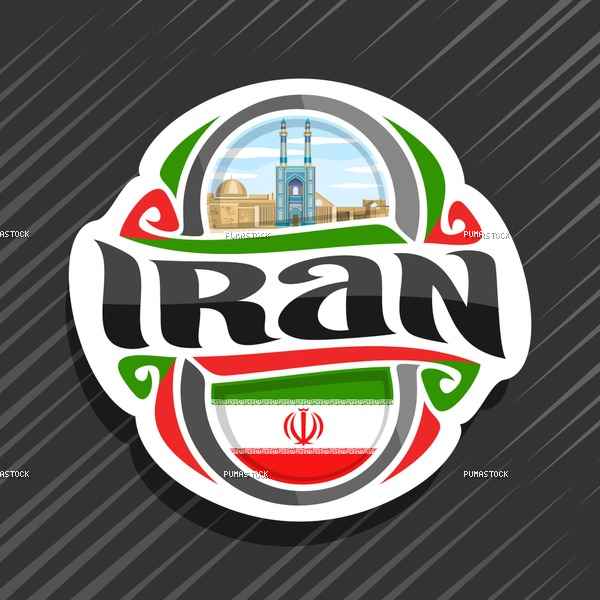
Vector logo for Iran country, fridge magnet with iranian state flag, original brush typeface for word iran and national iranian symbol - famous blue Jame Mosque of Yazd on persian cityscape background